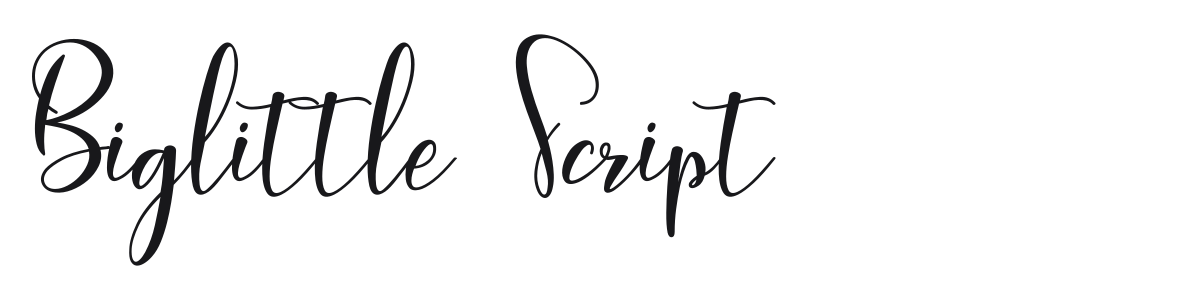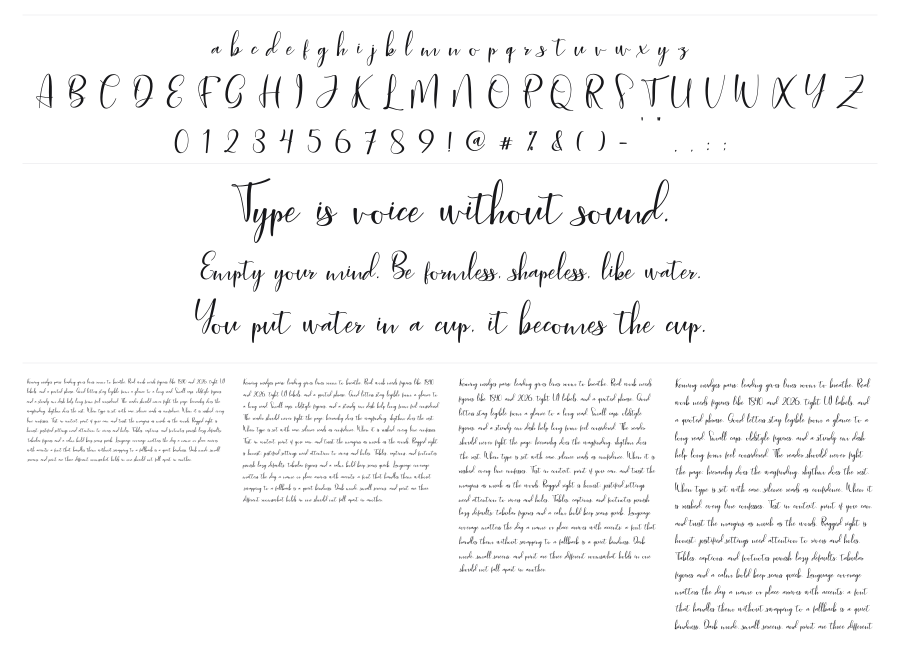
Biglittle Script
Biglittle Script is a flowing contemporary casual script with dramatic stroke contrast and a bouncy, undulating baseline. Letters swing between tall ascenders and deep descenders with elaborate swash details, giving the whole design an exuberant handwritten energy. It reads naturally at headline sizes and suits any context that calls for warmth and romance.